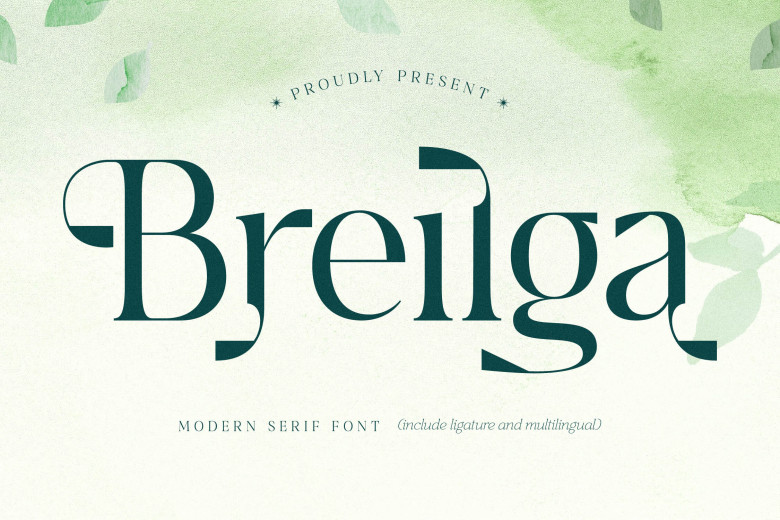
Breilga Font
Breilga is a modern and classic typeface. This typeface can be used for creating luxurious logos, book or movie titles, t-shirts, clothing magazines, letters and quotes among many other uses.
Breilga Serif Font